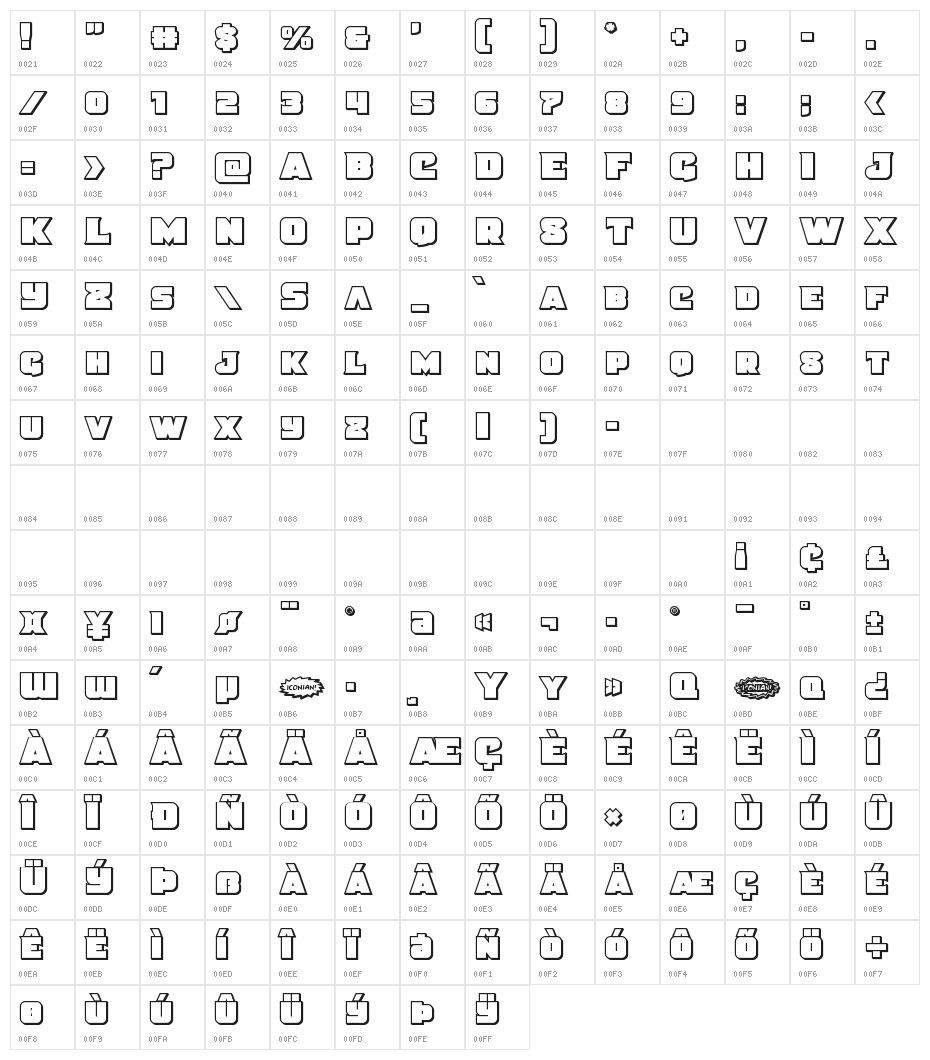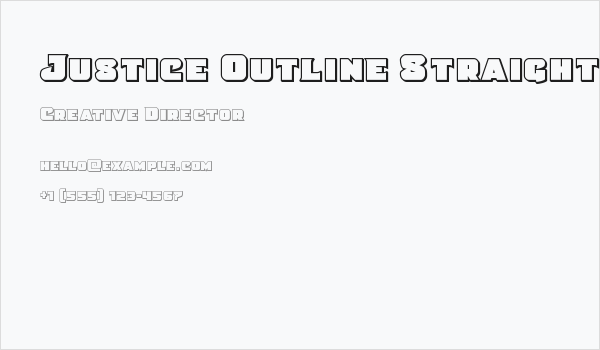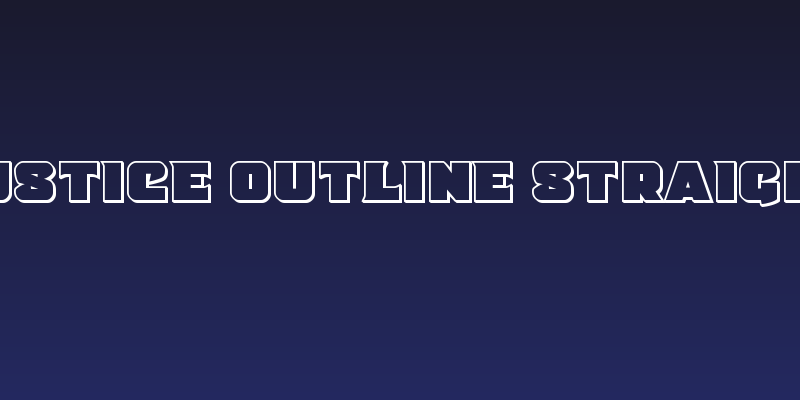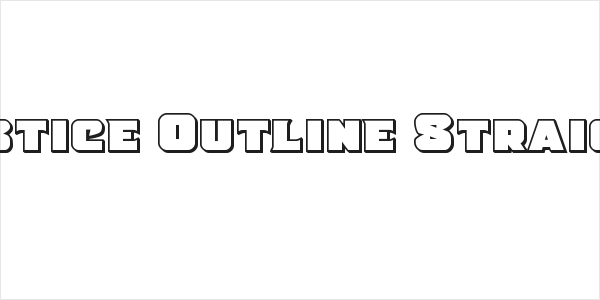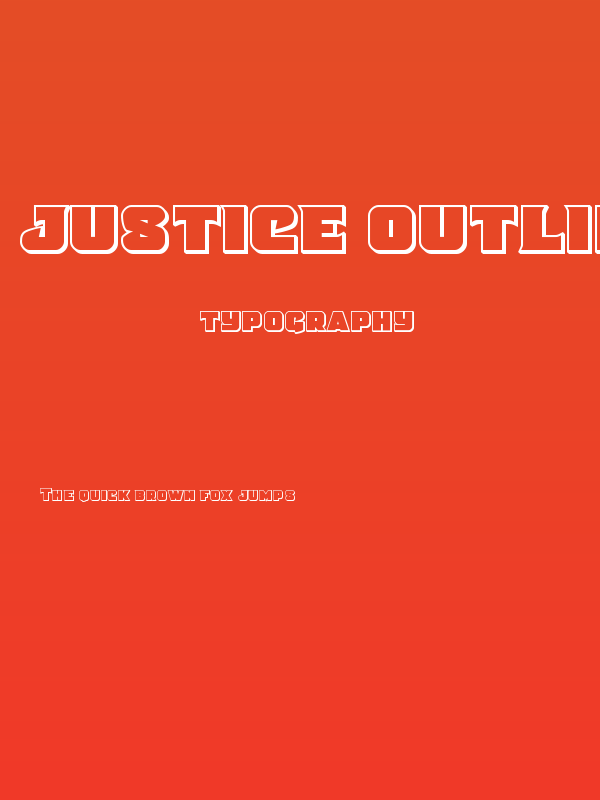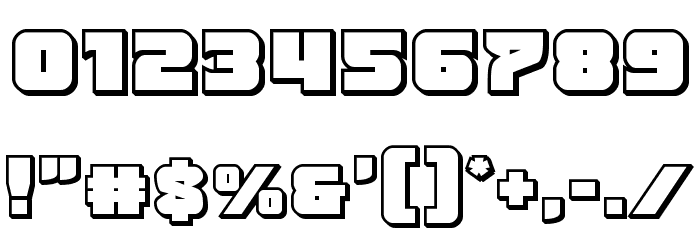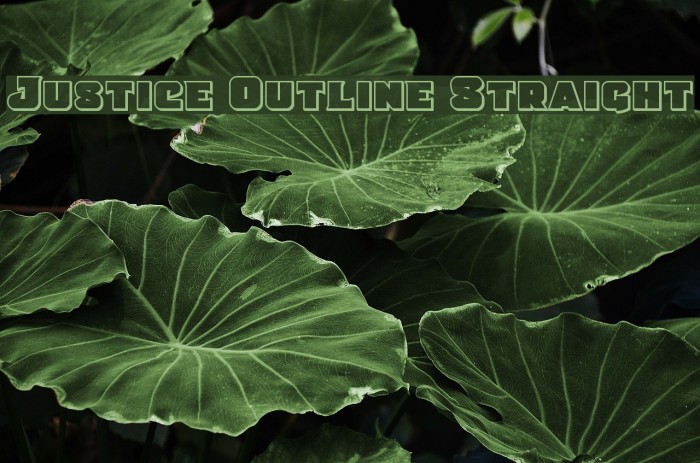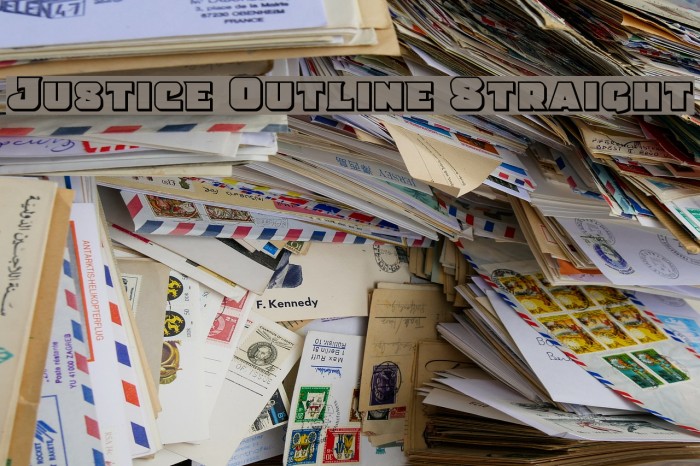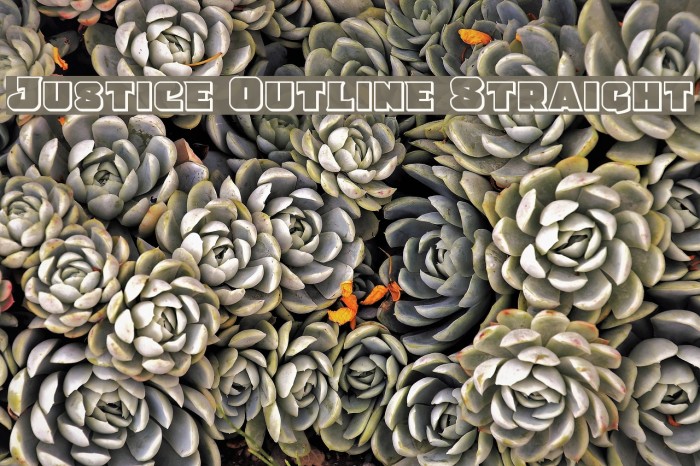
Justice Outline Straight Font
This font features a bold, outlined style with a strong geometric structure. The characters are uppercase, with a uniform thickness that gives them a solid and impactful appearance. The outlines are consistent, creating a sense of depth and dimension. The font's design is clean and modern, making it suitable for attention-grabbing headlines or titles. The spacing between characters is tight, which enhances the compact and cohesive look. The numbers and special characters maintain the same bold outline, ensuring uniformity across all glyphs.
| Proposed Projects | Ideal for posters, logos, branding, and any design requiring a strong visual impact. |